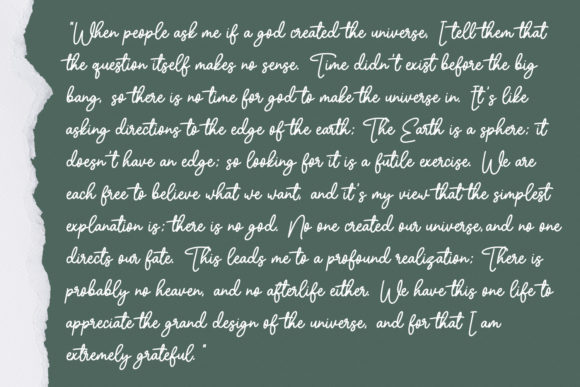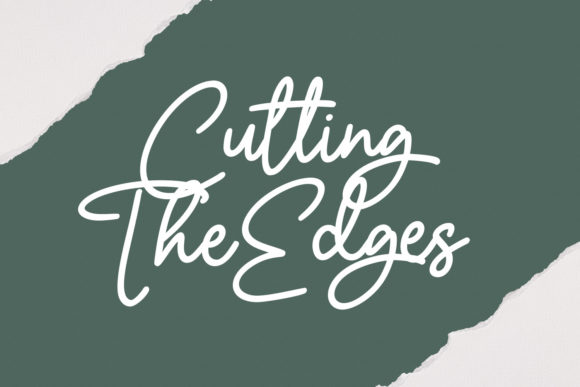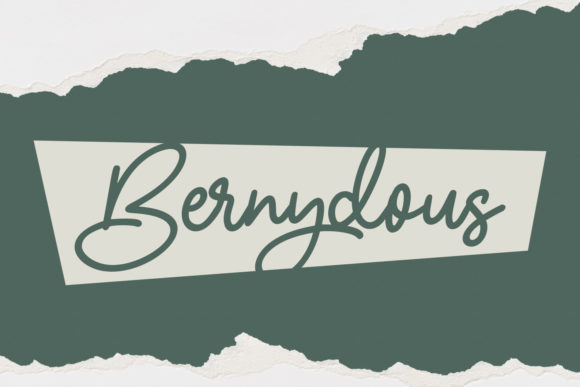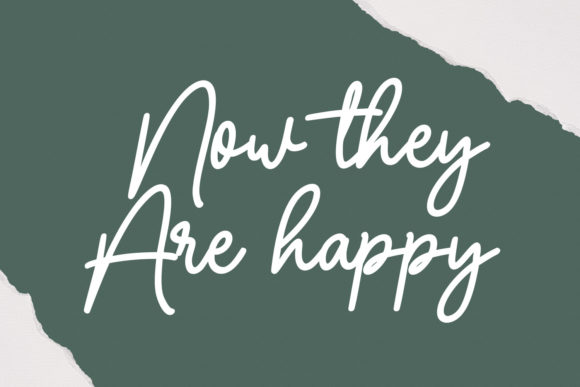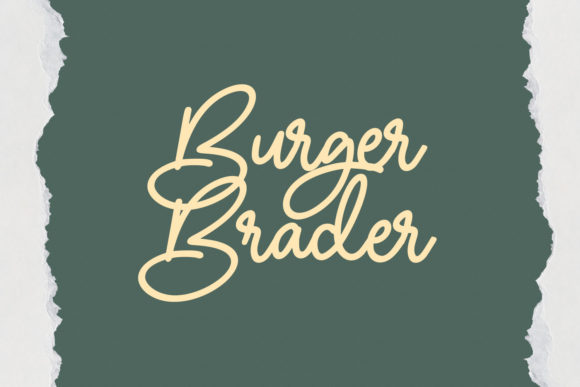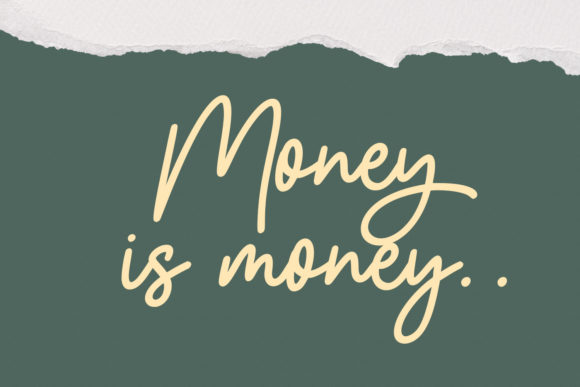
Introduction to Olliverya Script Font
Have you ever stumbled upon a font that makes your creative ideas come to life in a way that feels truly magical? For designers and creatives, discovering the perfect font can be a game-changer. It’s that moment when you’re brainstorming ideas for a new project and you suddenly stumble upon the perfect design resource – and everything just clicks. For those seeking that elusive touch of elegance, look no further than the enchanting Olliverya Script Font.
Whether you’re a seasoned designer or just starting out, Olliverya Script Font is a valuable addition to any creative toolkit. Its high-quality design and transparent background make it perfect for a wide range of projects, from Instagram-worthy graphics to DIY crafts. And the best part? It’s available for free download, making it an accessible design resource for creatives of all levels.
Key Features of Olliverya Script Font
- High-quality, hand-drawn design perfect for creative projects that require a unique touch.
- Features a beautiful, cursive script that is ideal for headings, titles, and other typography-focused elements.
- Designed to be highly legible, even at small font sizes, making it perfect for a variety of design applications.
Honest Review: Olliverya Script Font
As a designer, I’m always on the lookout for high-quality fonts to enhance my creative projects. Recently, I stumbled upon the Olliverya Script Font, and I must say, it’s been a game-changer. This beautiful script font is perfect for adding a touch of elegance to any design project.
- ✨ High-quality design: The Olliverya Script Font is meticulously crafted, with smooth lines and a professional finish.
- ✨ Versatile: This font can be used for a wide range of creative projects, from wedding invitations to branding materials.
- ⚠️ Limited language support: The Olliverya Script Font may not support all languages, which could be a limitation for global design projects.
- ⚠️ Not suitable for small text: Due to its intricate design, the Olliverya Script Font may not be ideal for small text or body copy.
Overall, I’m thoroughly impressed with the Olliverya Script Font. Its high-quality design, versatility, and free download make it an excellent addition to any designer’s toolkit. While it may have some limitations, it’s a must-have for any creative project that requires a touch of elegance and sophistication.
Using in Creative Projects
Whether you’re working on a wedding invitation, a blog post, or a social media campaign, the Olliverya Script Font is a great choice for any creative project. Its elegant and sophisticated design makes it perfect for adding a touch of class to your designs.
The Olliverya Script Font is commonly used for wedding invitations, social media graphics, and blog posts. It’s also a great choice for creating a transparent background, making it perfect for overlaying text on images.
To get the most out of the Olliverya Script Font, experiment with different font sizes and colors. You can also pair it with other fonts to create a unique and eye-catching design. Additionally, make sure to use a high-quality image behind your text to showcase the font’s beauty.